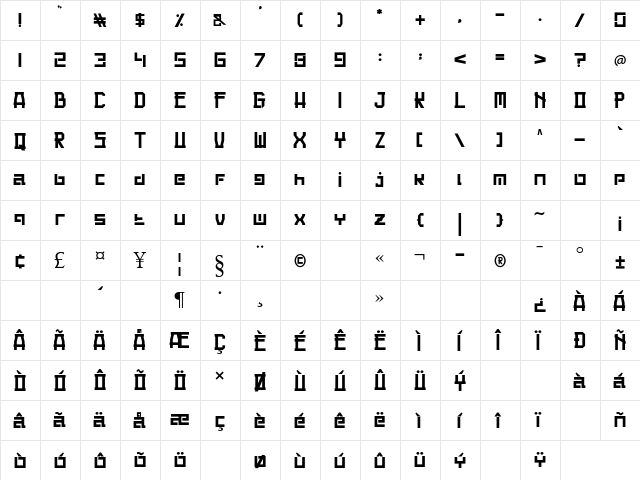
Guardian Warrior Regular
Design Context for Guardian Warrior Typeface
Guardian Warrior is a composed and adaptable typeface that performs quietly and consistently across a wide range of design contexts.